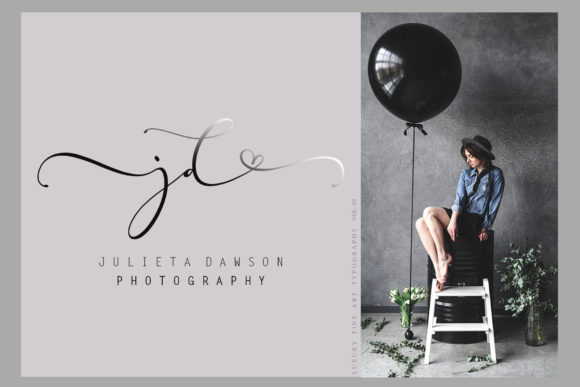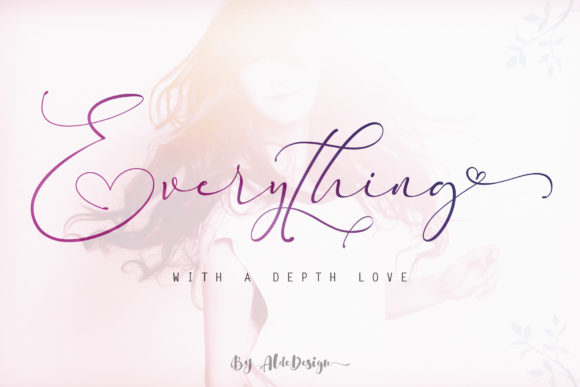
Freebie Wednesday: Everything Font
Creative Fabrica offers a free stylish calligraphy font. It features a varying baseline, has smooth lines, is modern and looks stunning. Everything Font for free for another 5 days so you better hurry.